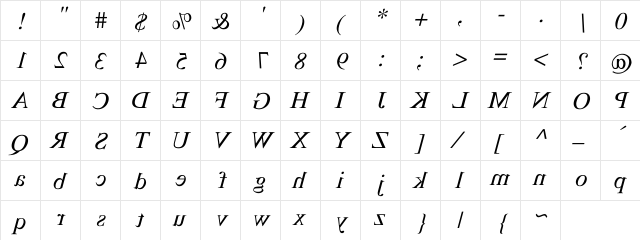
RSTimesMirror italic Italic
Design Context for RSTimesMirror italic Typeface
RSTimesMirror italic offers clean, dependable letterforms without strong stylistic allegiance, making it a practical choice for designers who need flexibility. The slanted form adds forward momentum and visual energy.
Pro Tip: Use RSTimesMirror italic for emphasis, pull quotes, and subheadings where its slanted energy can add rhythm to the layout.